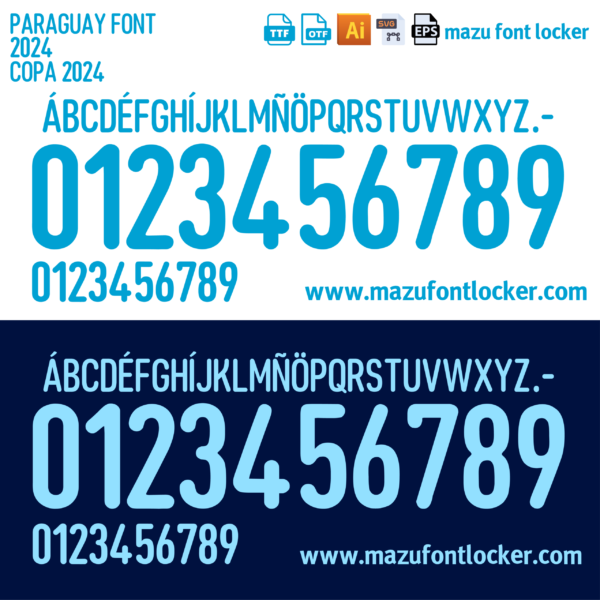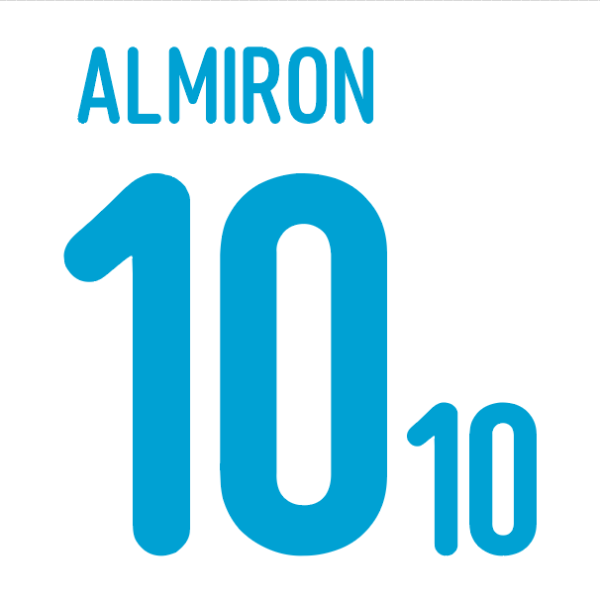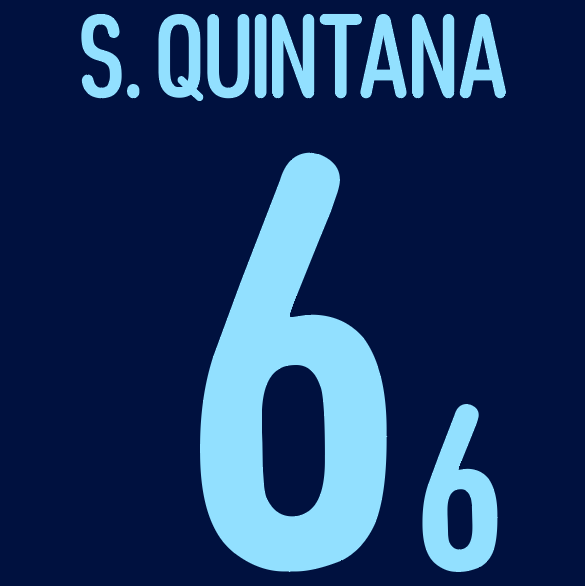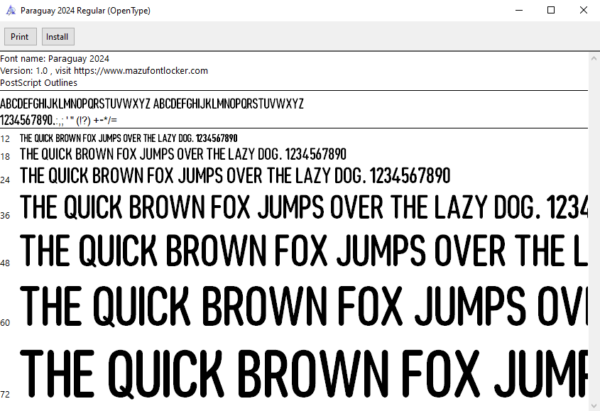
Paraguay 2024 Font Vector
Paraguay Copa 2024 font, names and numbers, fully editable VECTOR file for customisation.
Complete design with the Paraguay Copa 2024 numbering and lettering for the Copa America 2024 Match .